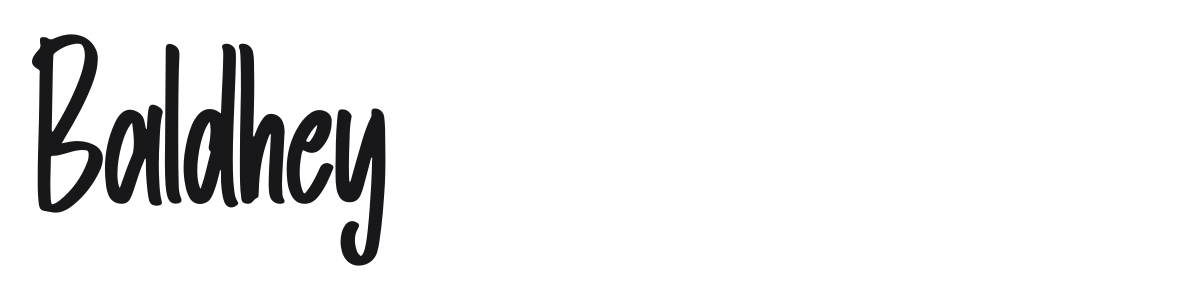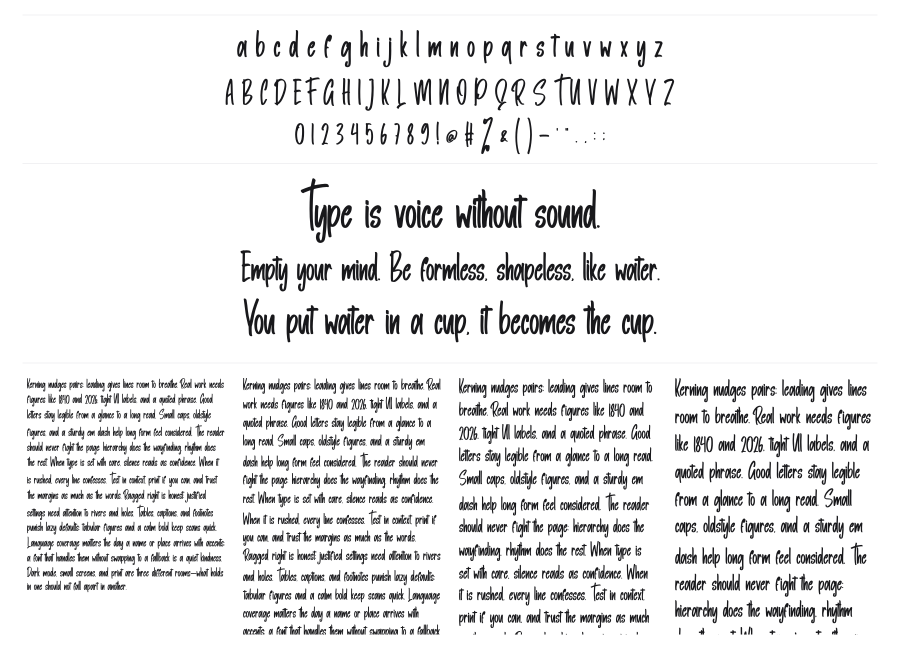
Baldhey
Baldhey is a bold upright handwritten script from Skiiller Studio with a thick, energetic stroke and natural pen-written flow. The connected letters carry just enough irregularity to feel genuinely hand-drawn rather than mechanical. It works well anywhere a casual, confident handmade voice is needed.